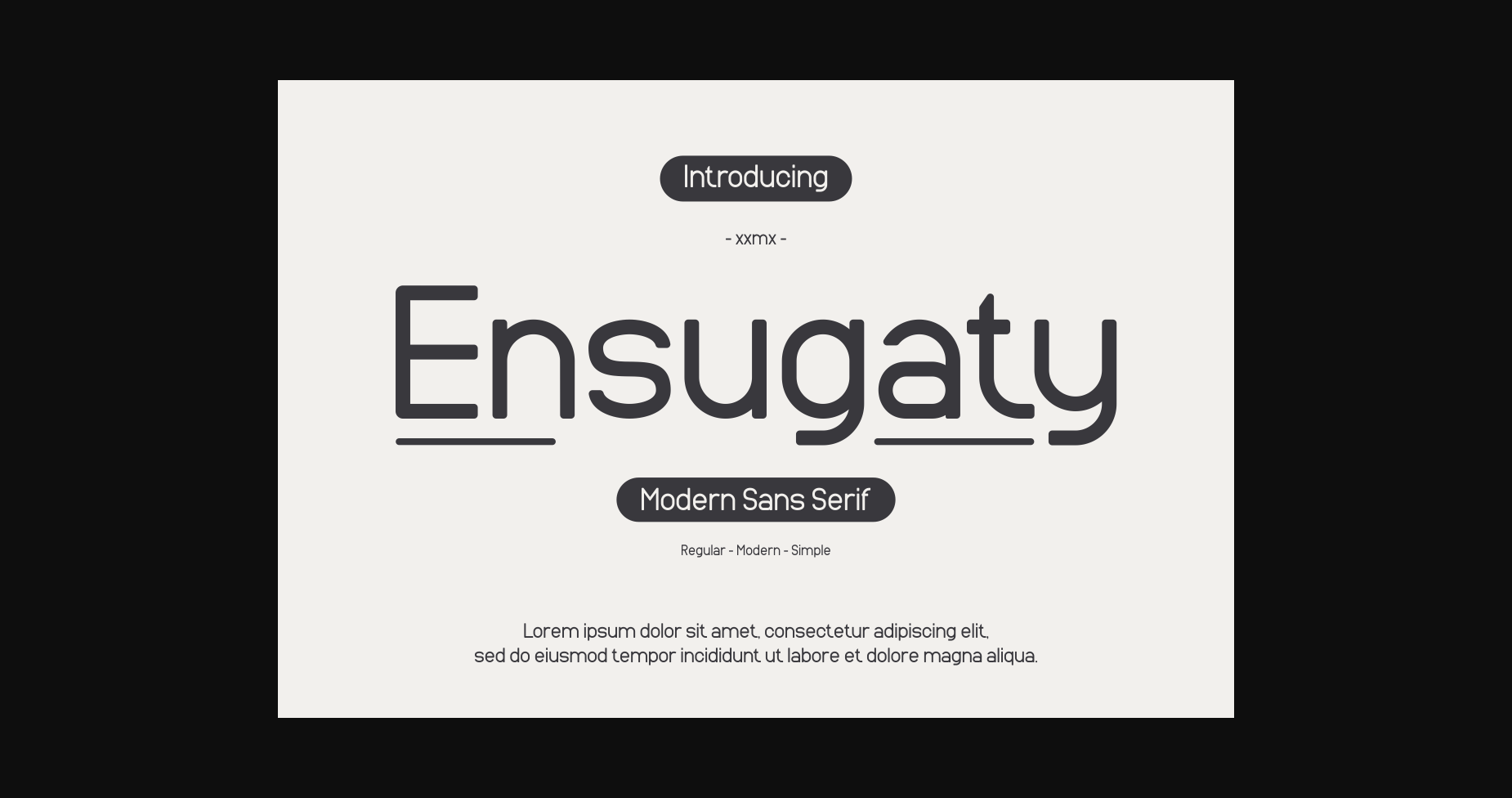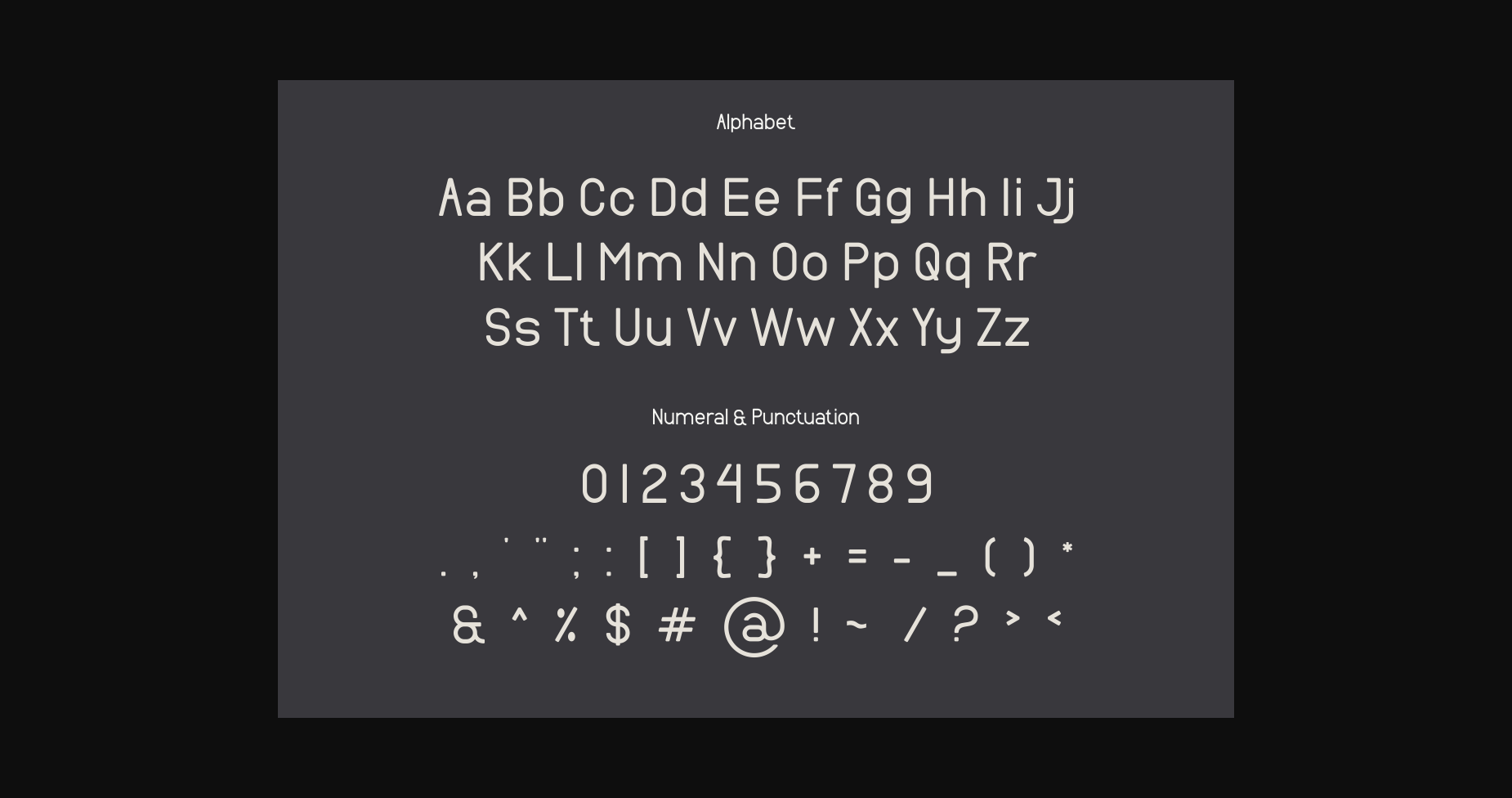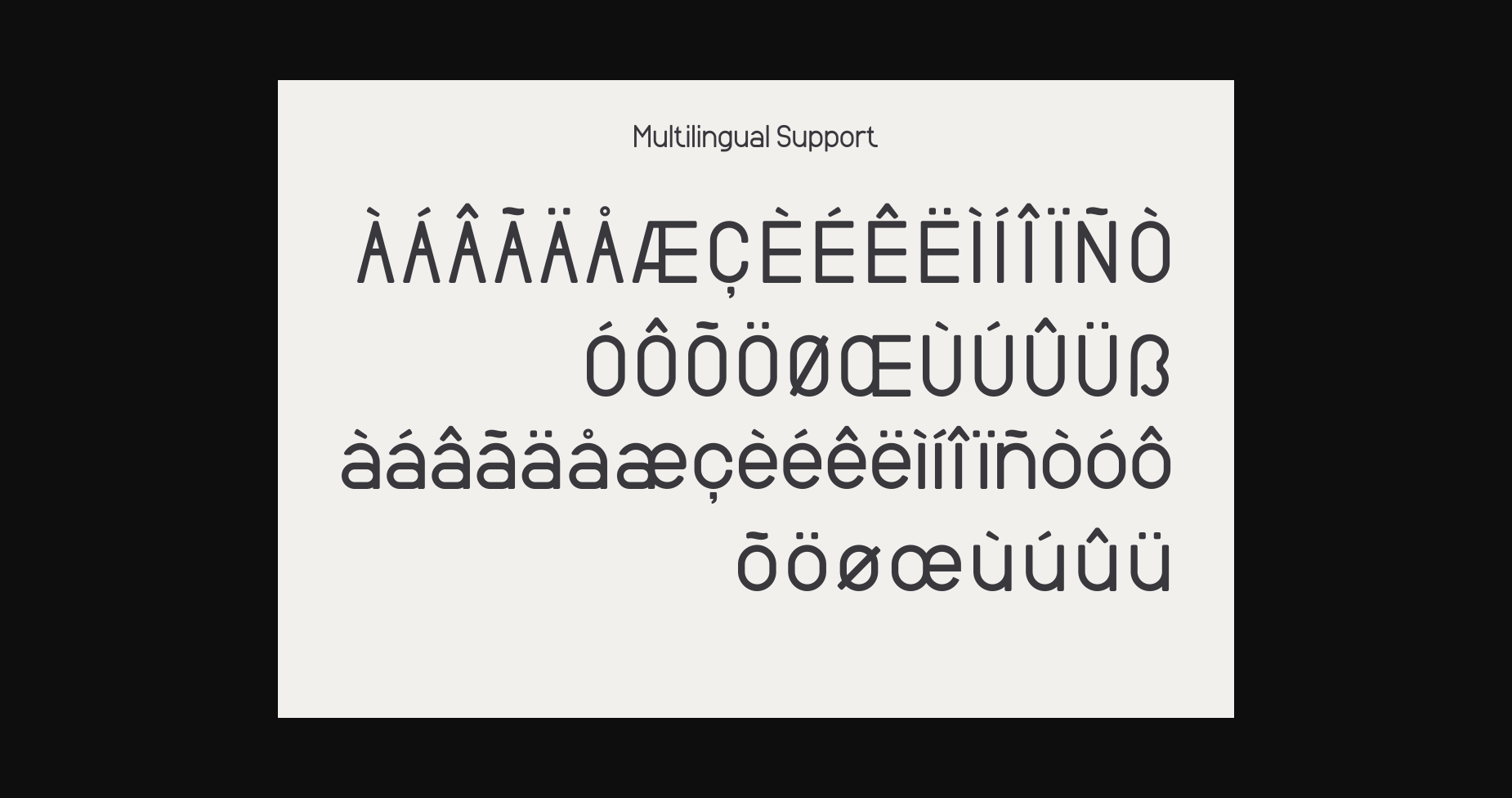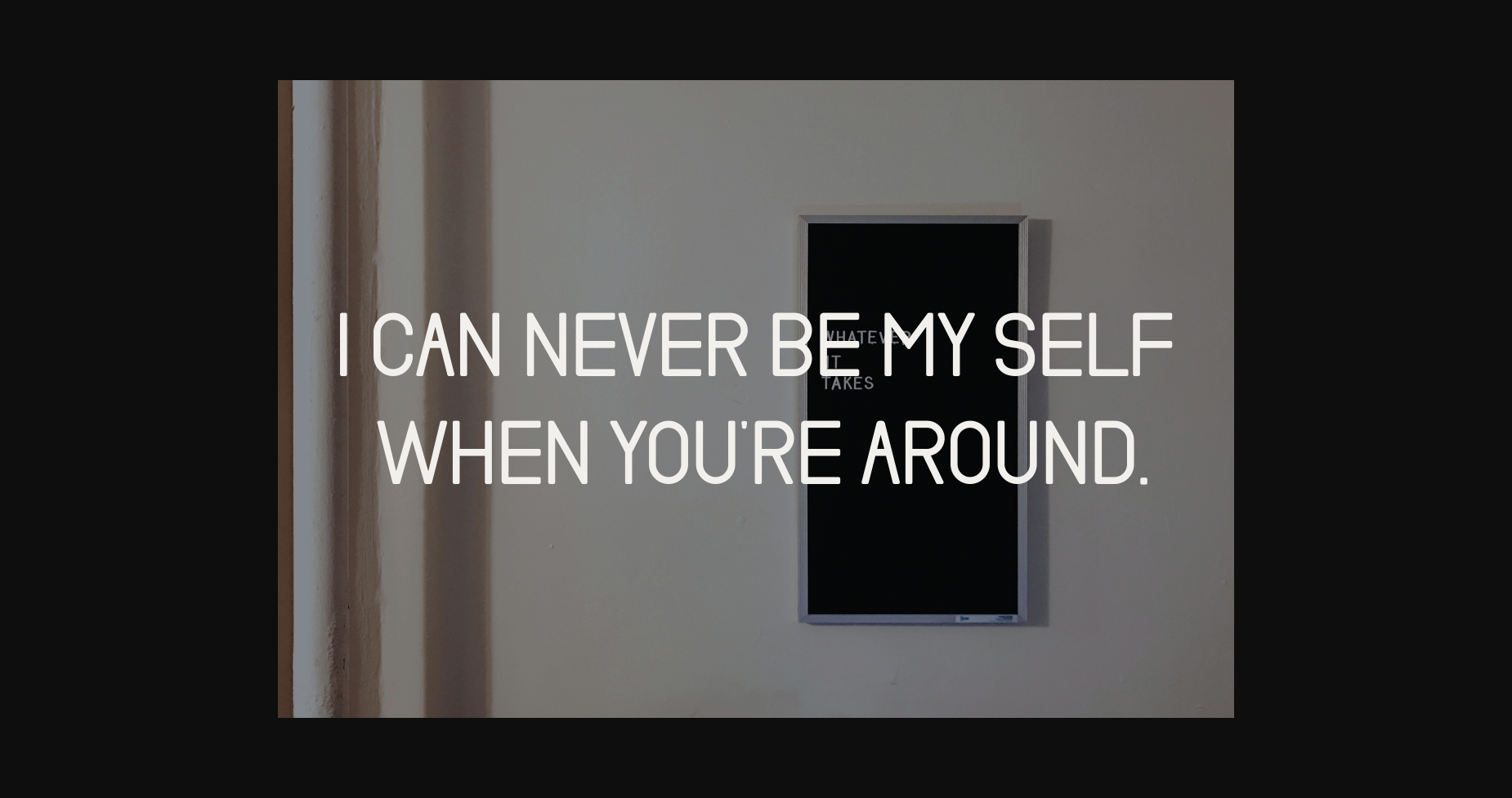
About Ensugaty Font
Introducing our new product **Ensugaty Font** – Modern Font
**Ensugaty Font** – Modern Font is a bold and authentic display font. The font is suitable for any branding project like logo, template design, esport, and many more. outstanding in a wide range of contexts.
* Uppercase
* Lowercase
* Multilingual